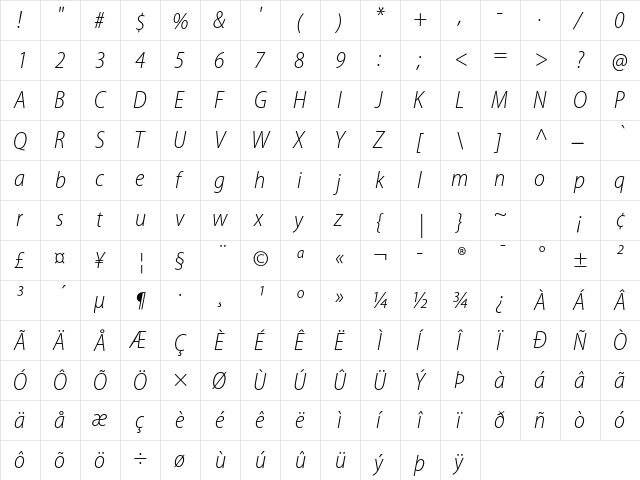
Myriad Pro Light SemiCondensed Italic Font Preview
| Style | Light SemiCondensed Italic |
| Designer | Robert Slimbach and Carol Twombly with Fred Brady and Christopher Slye |
Design Context for Myriad Pro Typeface
Myriad Pro takes a measured approach to typography — its balanced proportions and neutral character make it a reliable workhorse for both digital and print work. The slanted form adds forward momentum and visual energy. The delicate stroke weight brings airiness and refinement to layouts. The condensed width makes it efficient for tight spaces without sacrificing legibility.
Pro Tip: Use Myriad Pro for emphasis, pull quotes, and subheadings where its slanted energy can add rhythm to the layout.